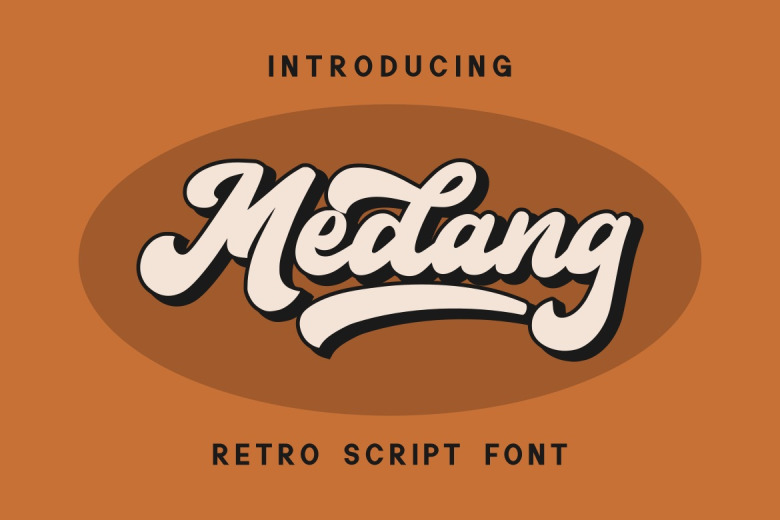
Medang Font
Medang is a bold retro script font ideal for designs harkening back to nostalgic eras. While suitable when simplified uniformity is needed, its true ability shines in more elaborate contexts. There, its ornate characters and alternate forms allow emphasis and variation across phrases. Designers can craft livelier pieces through judicious use of its small caps, numerals arranged for visual balance, or fractions dividing portions attractively.
Medang Retro Script Font